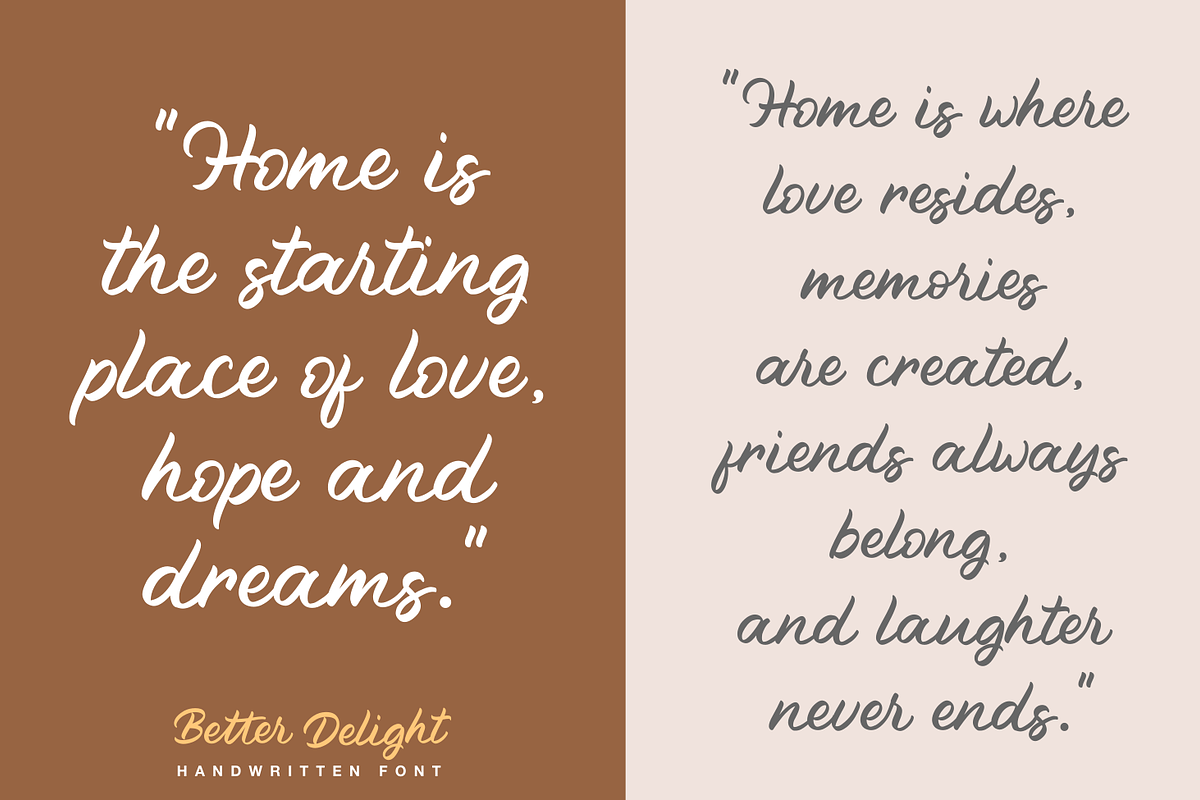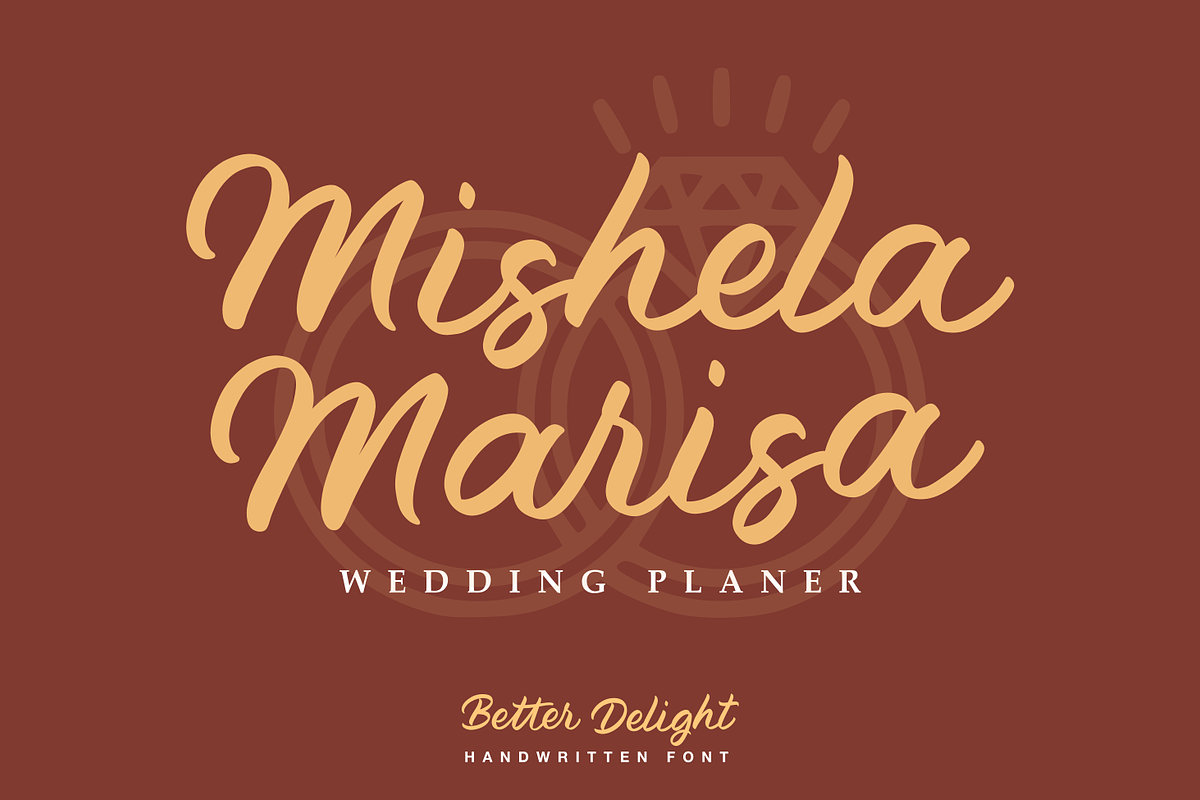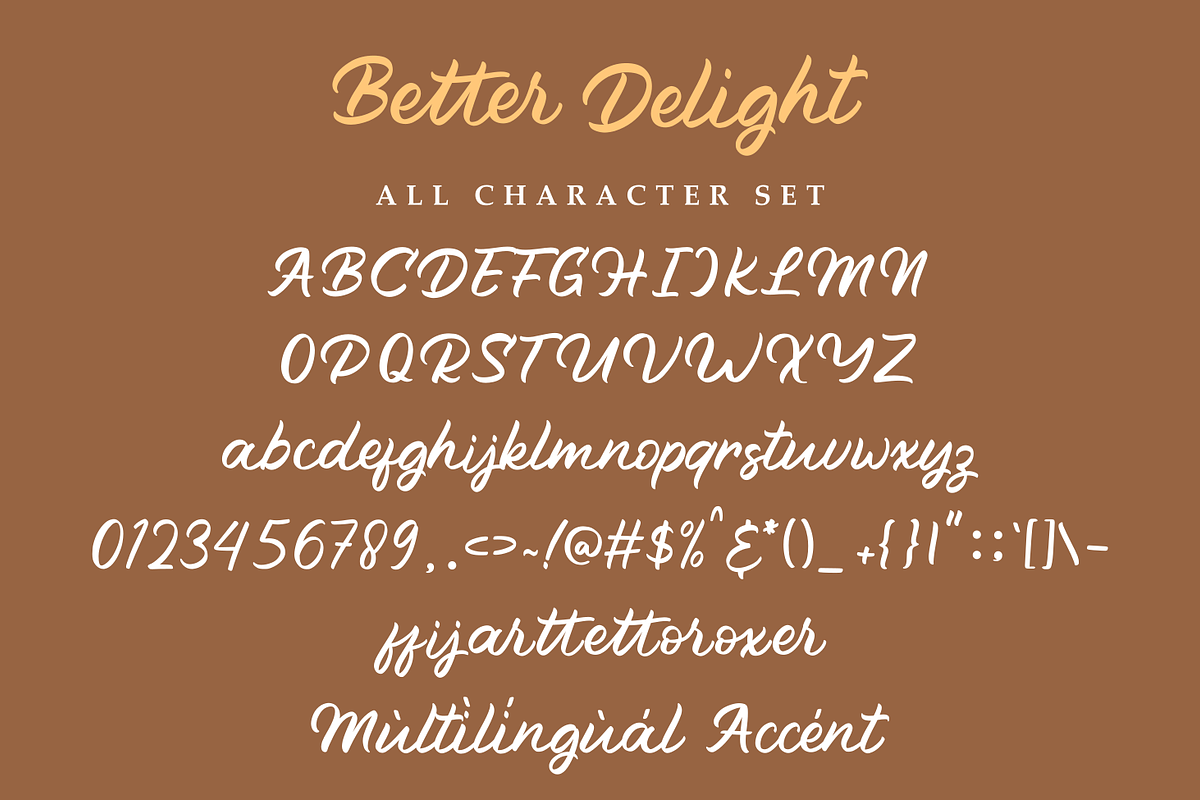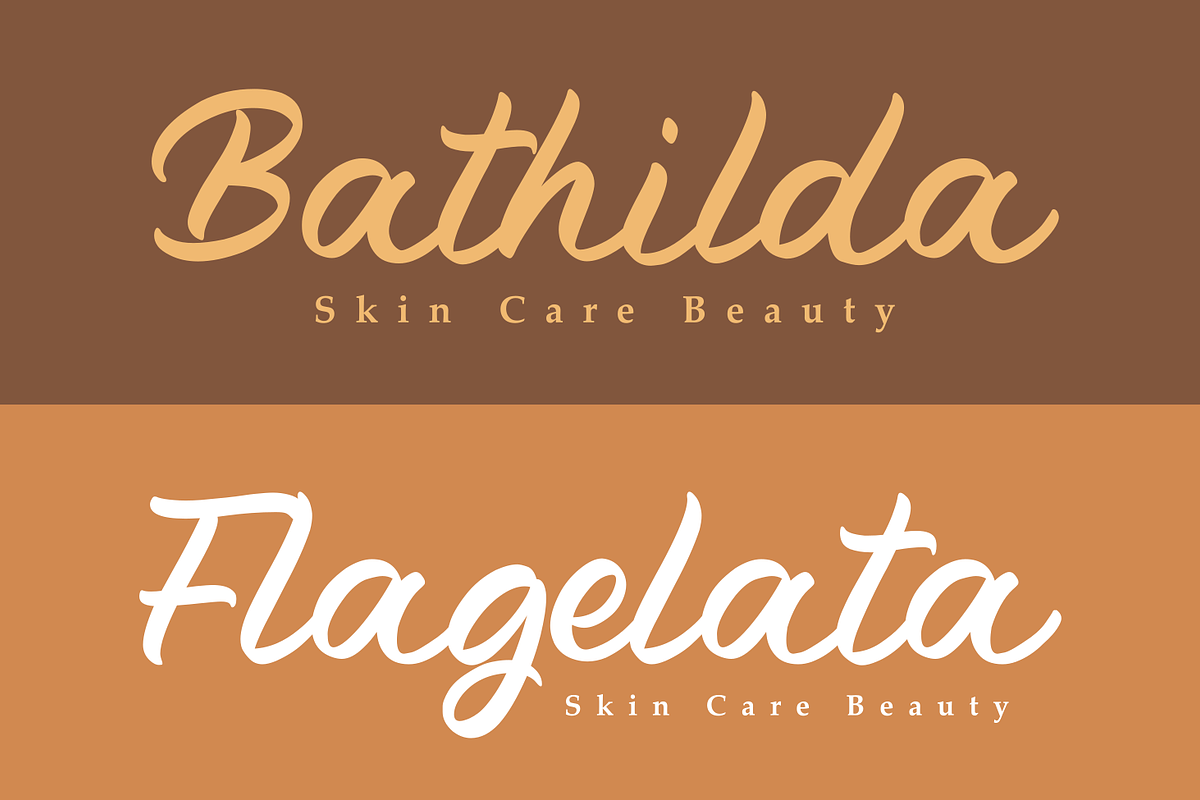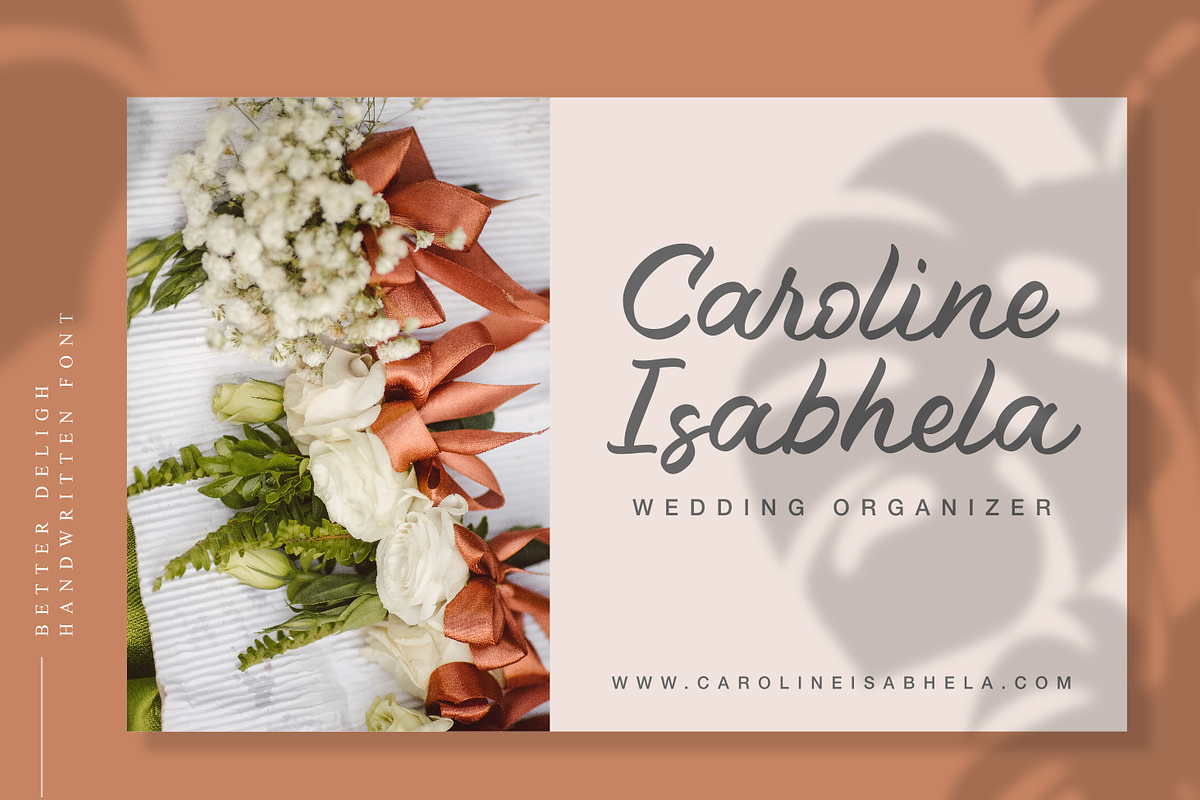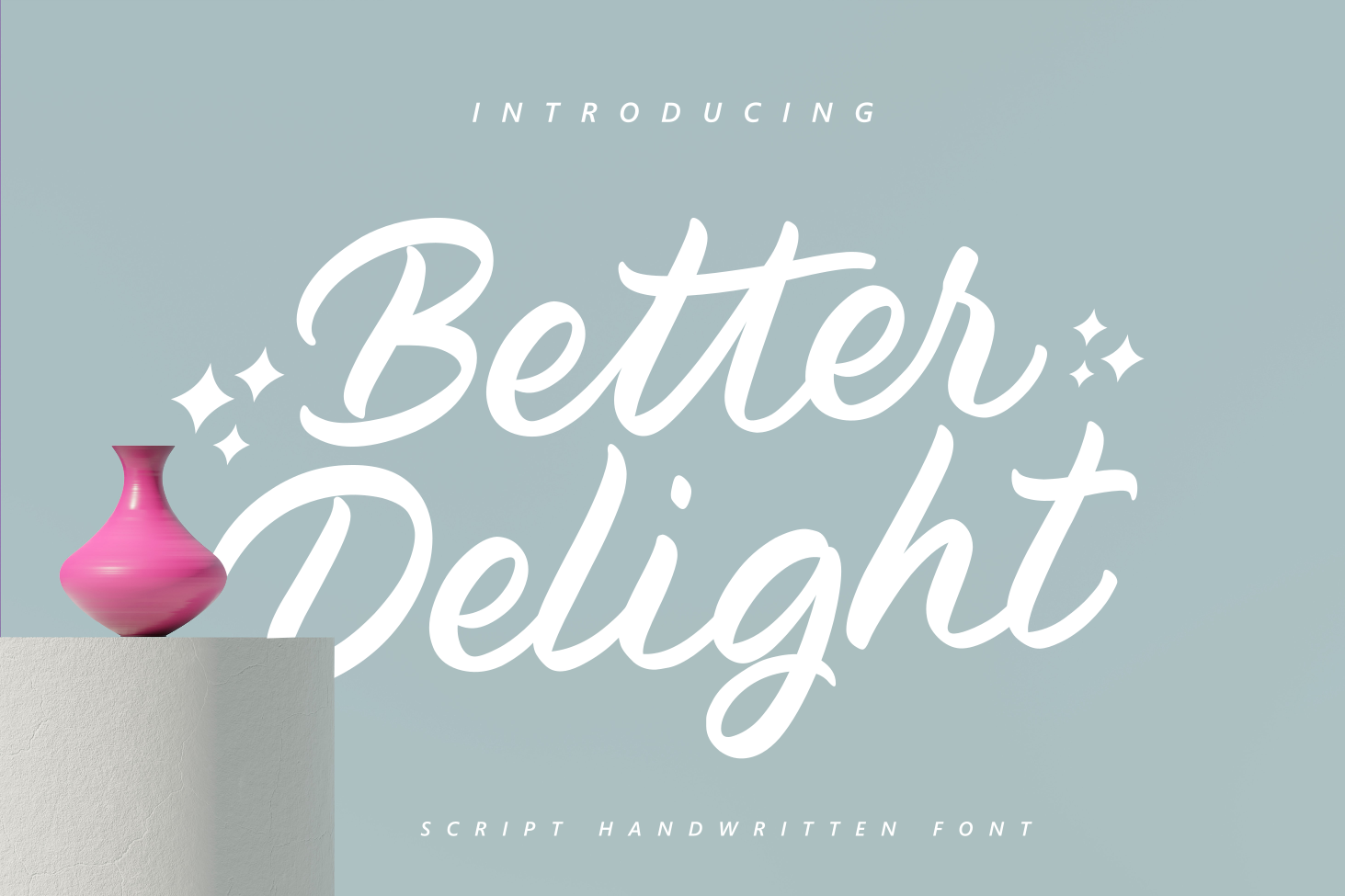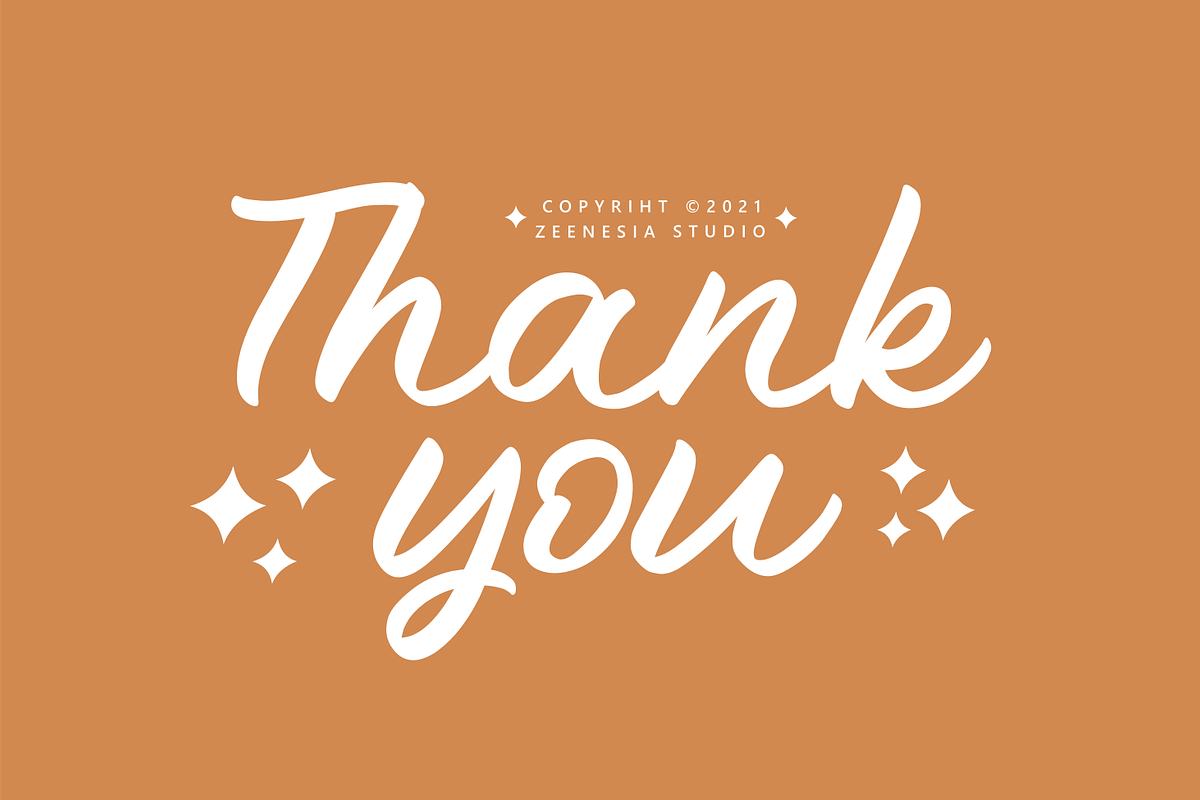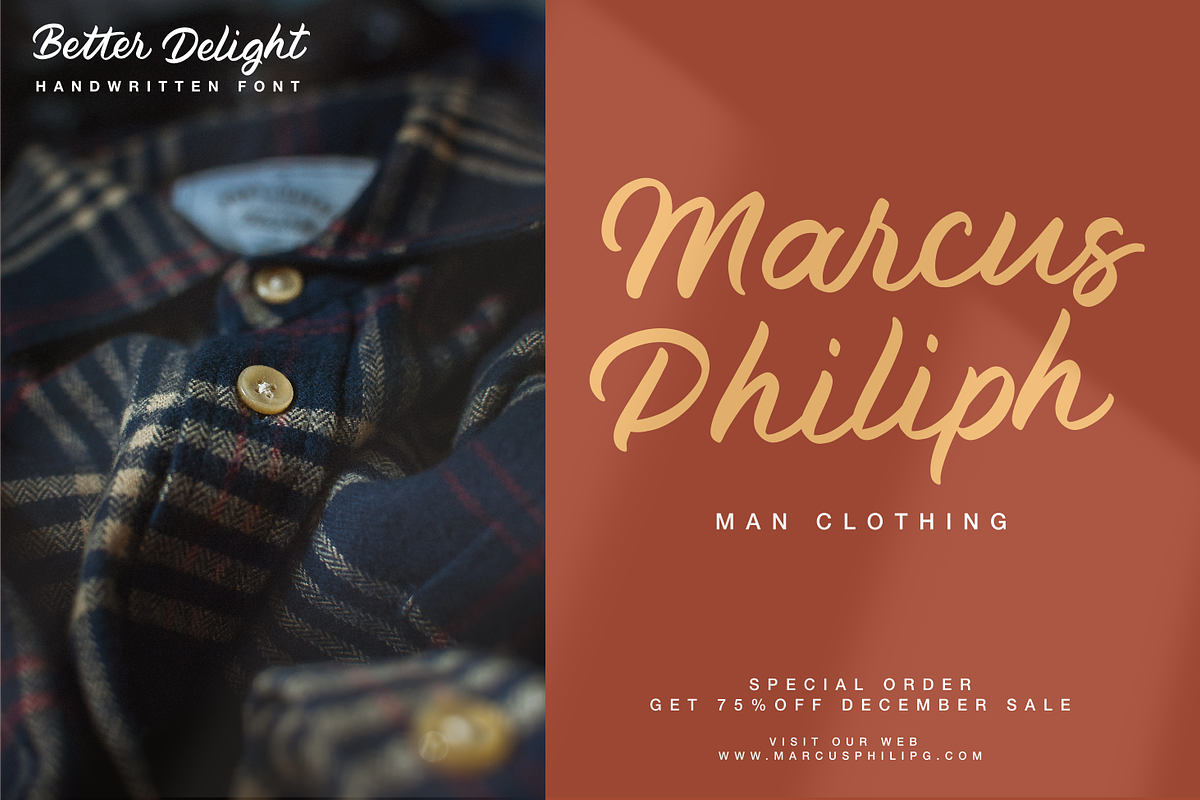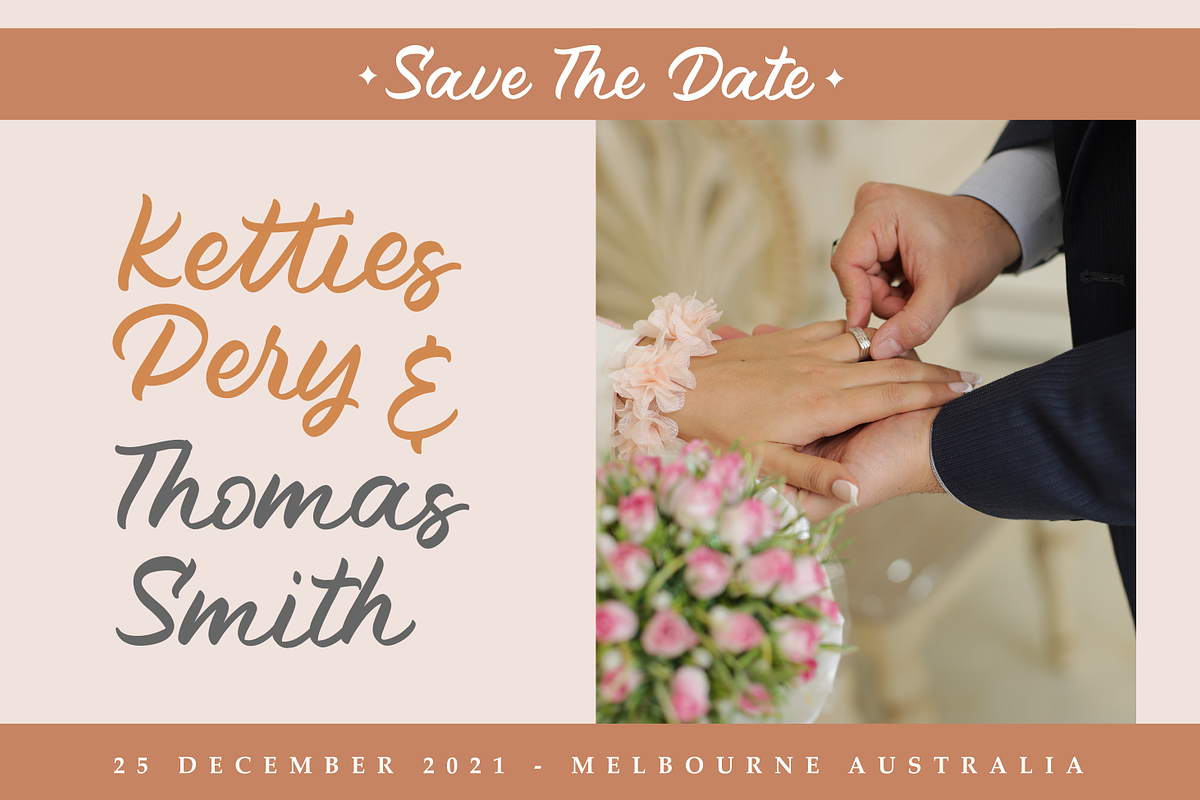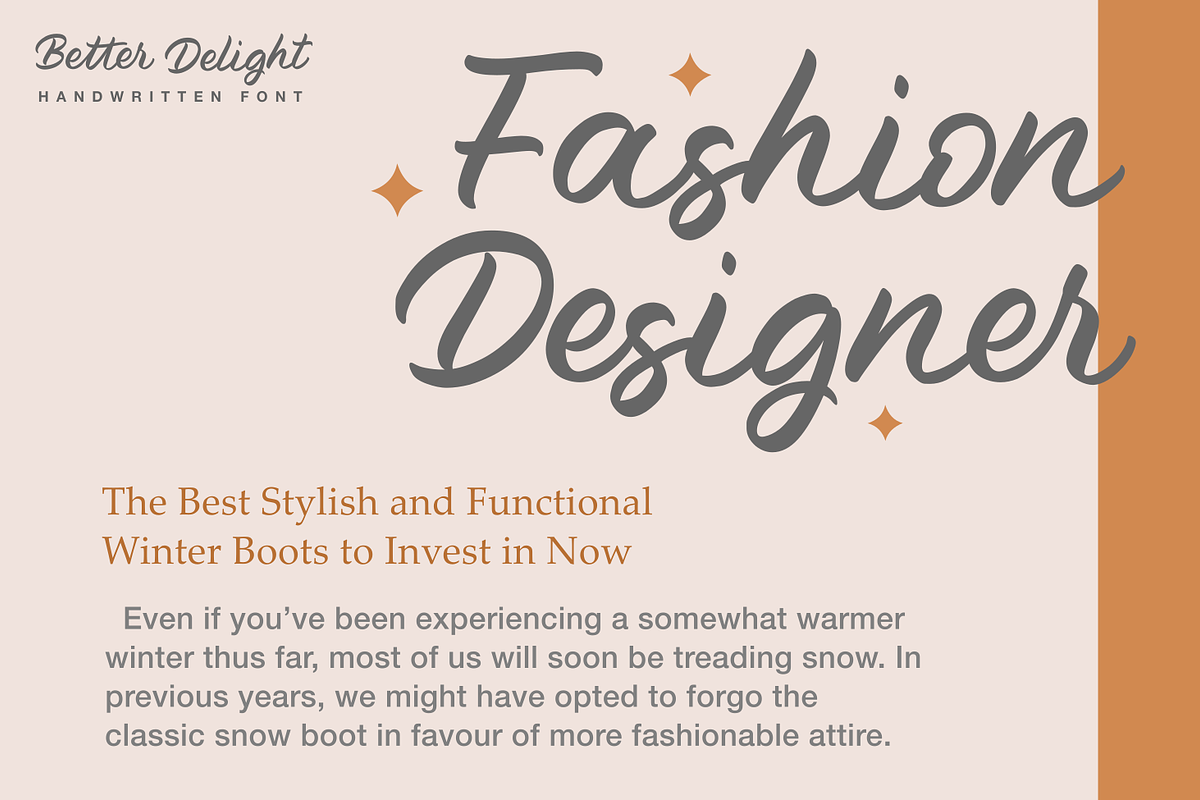
Better Delight - Handwritten Font
Better Delight - Handwritten Font Better Delight is a handwritten script font with a simple and classy style, this font is great for your next creative projects such as watermark on photography, logo design, wedding, invitation, quotes, book cover, business card, and many other design project. From business cards to photo watermarks.